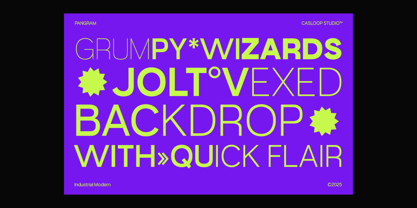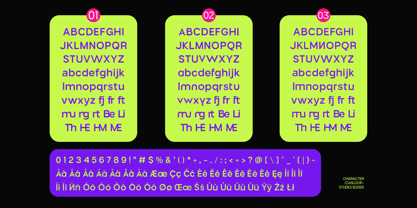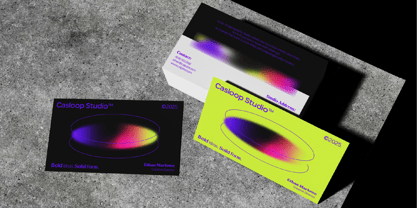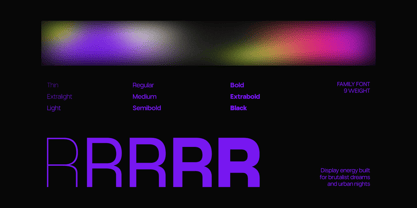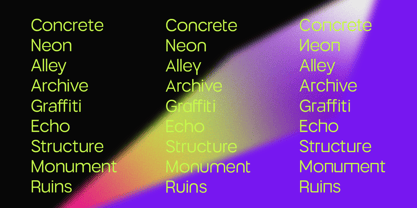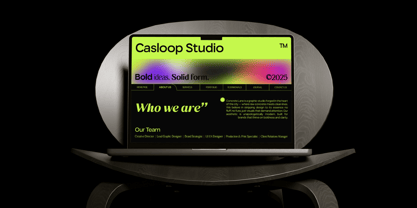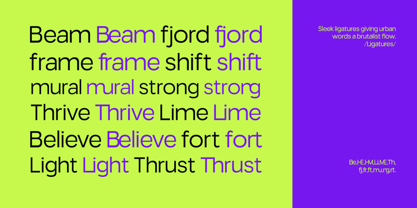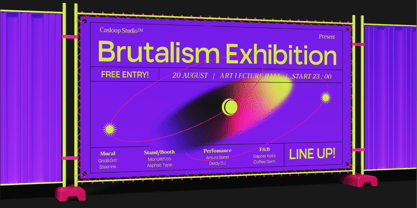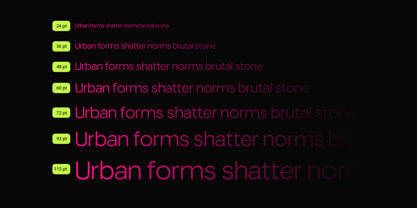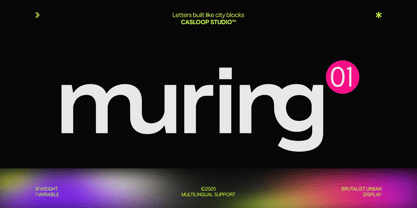
Muring 01
Muring.01 is a bold brutalist display sans serif designed for brands that want to stand strong, modern, and unapologetic. Inspired by urban brutalism and industrial architecture, this font brings raw concrete aesthetics into a versatile type system for today’s design needs.
Its strongest detail is found in the character “R” — sharp, confident, and commanding. Along with stylistic alternates for letters like R, A, and T, Muring.01 allows expressive flexibility, giving every project a distinctive visual rhythm. Built in 9 weights (Thin to Black) it adapts easily across editorial, digital, and environmental design.
This typeface blends industrial strength with modern rhythm, making it perfect for projects that need a bold presence while staying clean and professional.
Personality
“Muring” – raw geometry with urban grit
Brutalist skeleton, unapologetically bold
Strong rhythm, clean industrial presence
Feels like: concrete walls, street signage, modern editorial grids, neon-lit billboards
Best For
Branding & corporate identity
Editorial & magazine layouts
Posters, signage & billboard campaigns
UI/UX & digital platforms
Modern websites with urban edge
From posters to pixels, Muring.01 turns type into architectural statements. Whether you’re building a brand, a campaign, or a digital experience, this font gives your words the power and permanence of urban concrete.